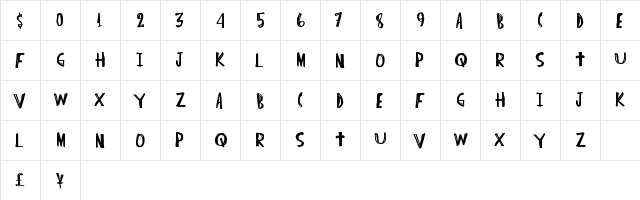
IndieHype Regular
| Foundry | Xerographer Fonts |
| Designer | Xerographer Fonts Max Infeld |
Design Context for IndieHype Typeface
IndieHype is a composed and adaptable typeface that performs quietly and consistently across a wide range of design contexts.